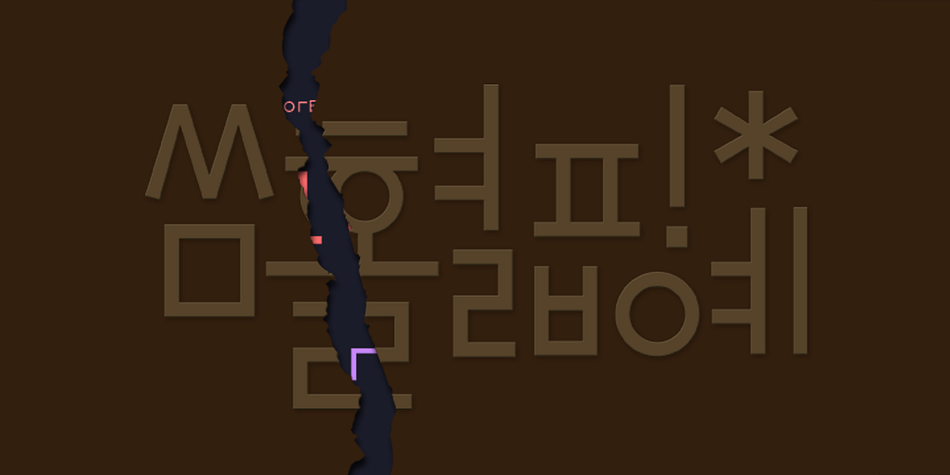
Core Dodam
Core Dodam is a display sans font family. This typeface has three styles and was published by S-Core.
Core Dodam is a geometric shaped title font with unique structure.
The shape of each character is very simple and modern.
Depending on shape, some characters have different heights.
It makes the line of text rhythmically.
We recommend to use for the title or short sentence on posters and especially useful for design works.
Core Dodam is a geometric shaped title font with unique structure. The shape of each character is very simple and modern. Depending on shape, some characters have different heights. It makes the line of text rhythmically. Supported codepages are MS Windows 1252 Latin1 and MS Windows 949 Korean consisting of 11,172 Korean letters and Symbols except Chinese. We recommend to use for the title or short sentence on posters and especially useful for design works.